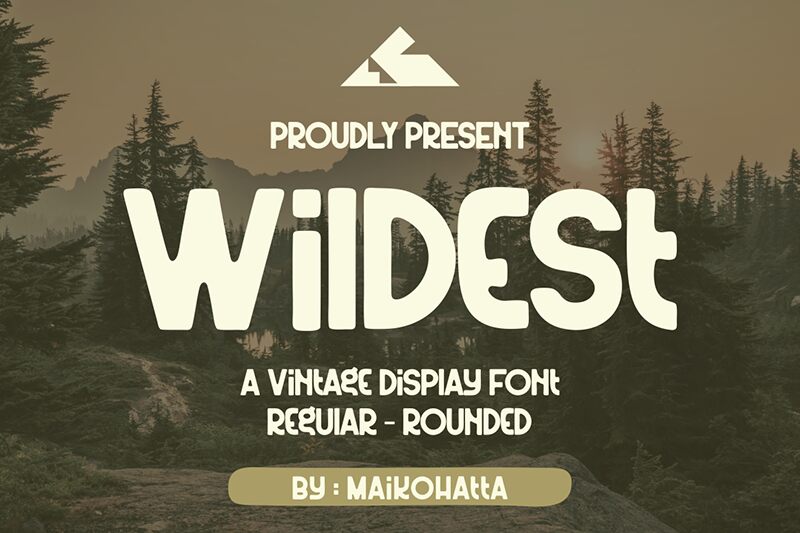
Wildest
Wildest font by Gilang Ternadho is a bold display typeface that demands attention with its geometric forms and strong presence. This retro-inspired font boasts a modern twist, combining past design styles with contemporary aesthetics. Its bold personality makes it eye-catching and memorable, perfect for projects that need to make an impact.
Using the Wildest free display font leads to great results for logos, packaging design, apparel designs on t-shirts or hoodies, website headers or hero sections, posters and flyers, book covers and movie titles, brochures and typography purposes in magazines or newspapers. Use also in social media posts or videos!